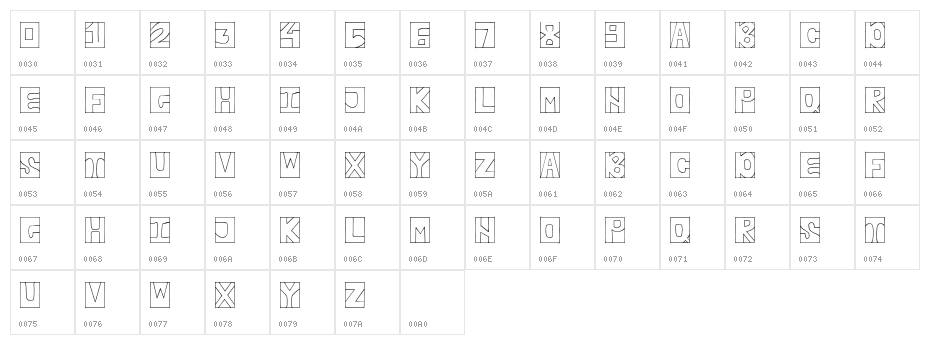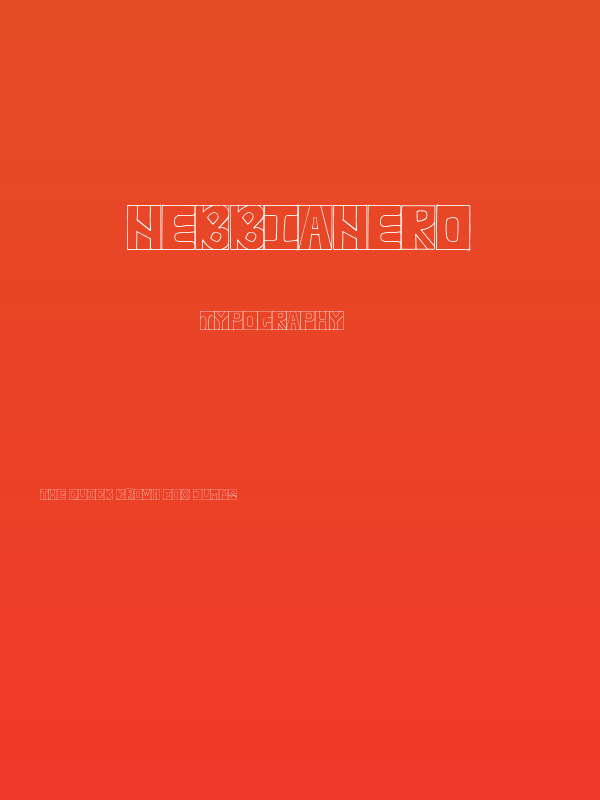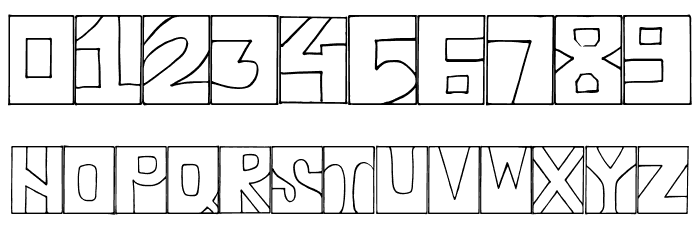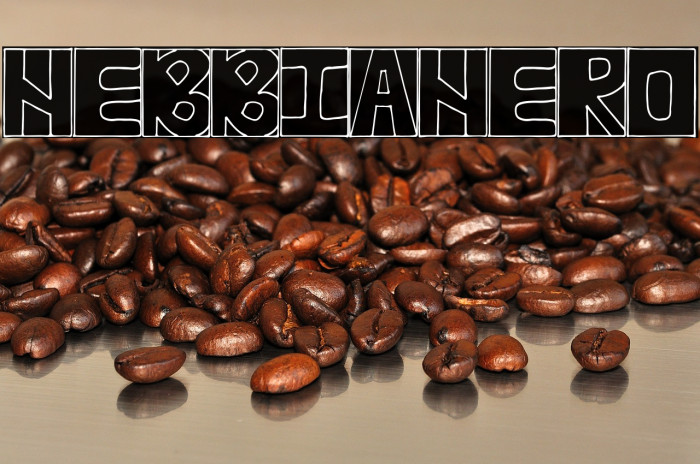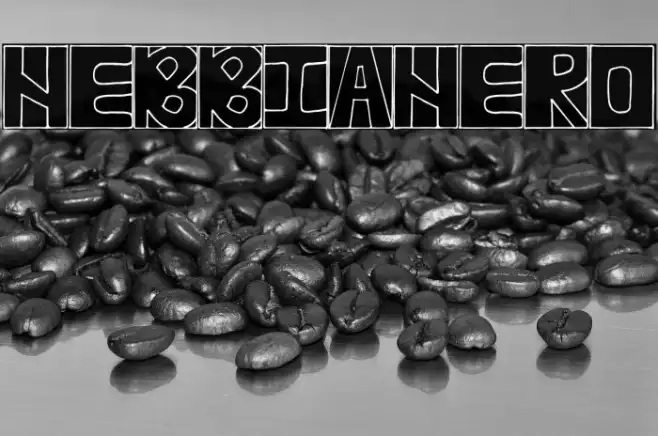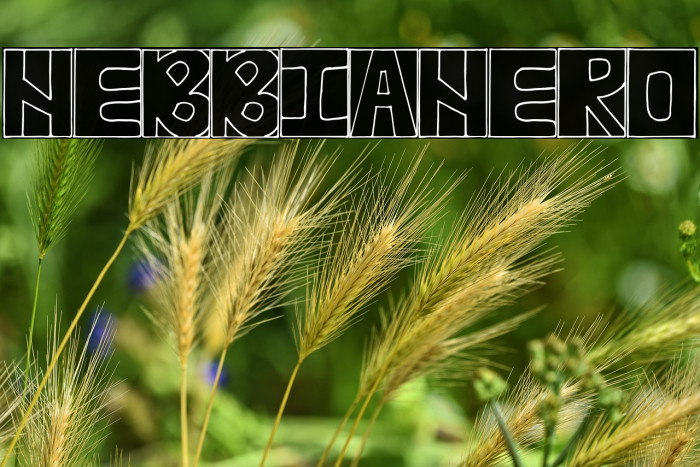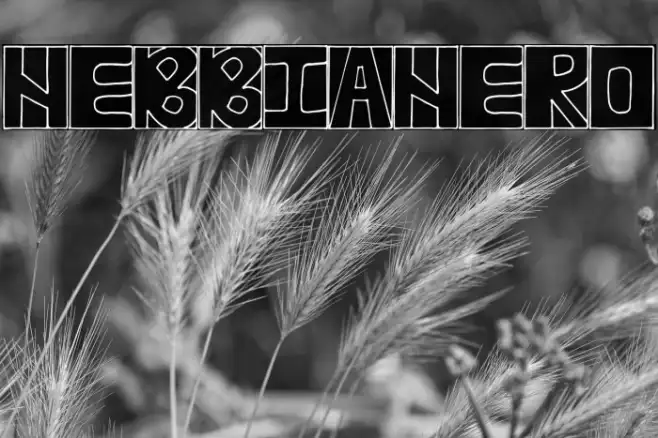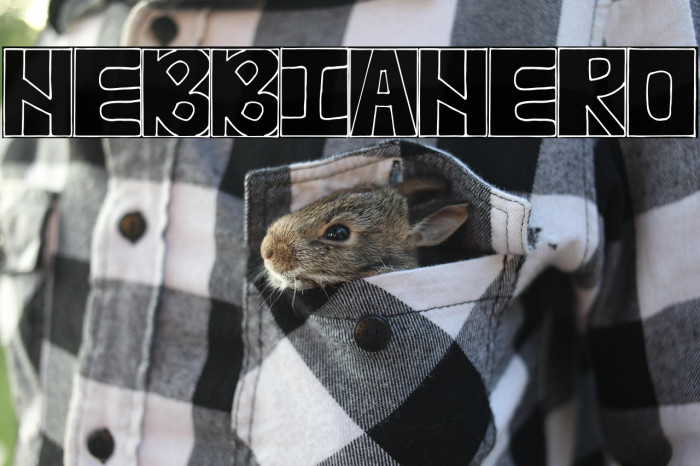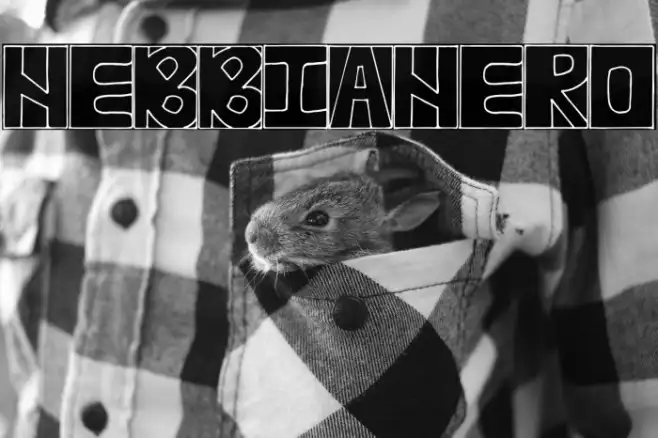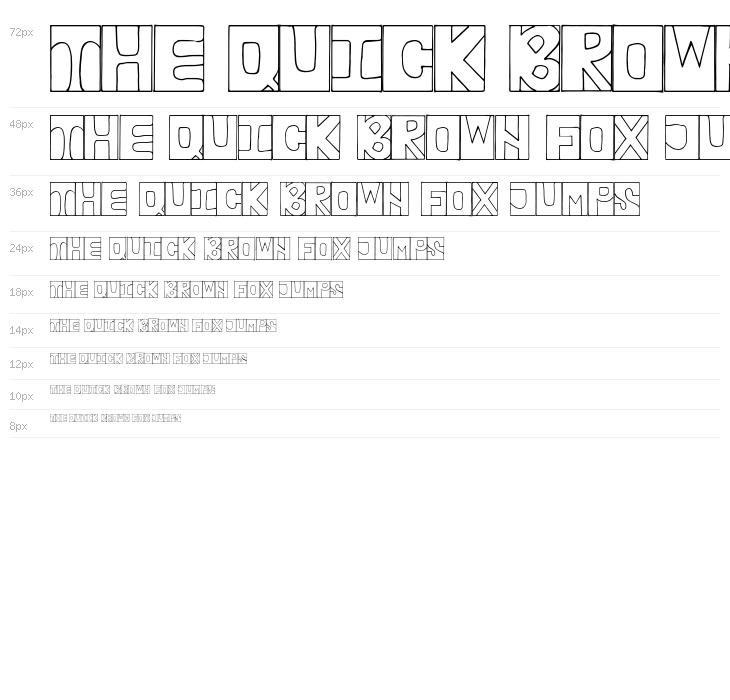
NEBBIANERO Font
NEBBIANERO Description
This font features a unique, geometric design with bold, angular shapes that give it a distinct, modern appearance. Each character is enclosed within a square, creating a uniform and structured look. The uppercase letters are particularly striking, with sharp edges and a strong presence. The lowercase letters maintain the same geometric style, offering a cohesive aesthetic throughout the font. Numbers and special characters are designed with the same attention to detail, ensuring consistency across all elements. This font's bold and artistic style makes it ideal for projects that require a standout, contemporary typeface.
| Proposed Projects | Ideal for branding, posters, album covers, and any project needing a modern, eye-catching typeface. |